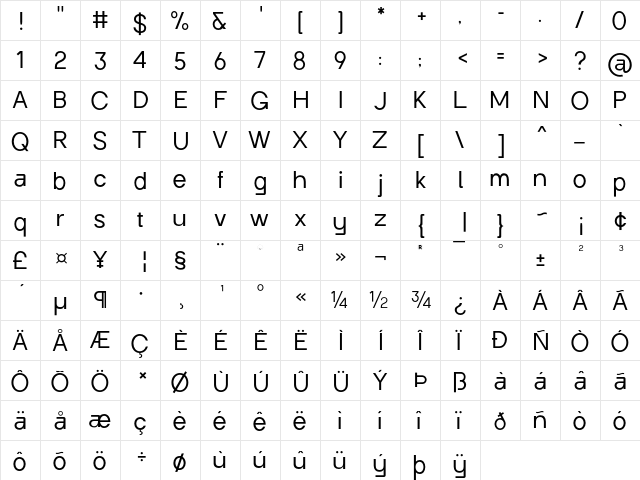
Punta Light Regular
| Foundry | Tuna Ekici |
| Designer | Tuna Ekici |
Design Context for Punta Light Typeface
Punta Light offers clean, dependable letterforms without strong stylistic allegiance, making it a practical choice for designers who need flexibility. The delicate stroke weight brings airiness and refinement to layouts.